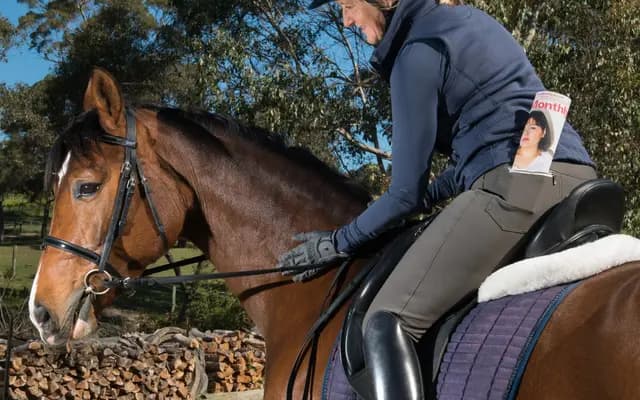
ABC Social
Dinamo Typefaces · Dinamo (Johannes Breyer & Fabian Harb, with Wei Huang, Malte Bentzen, Erkin Karamemet & Fabiola Mejia)
ABC Social specimen from Dinamo Typefaces
A friendly, smooth grotesque in four widths with eight weights, dynamic 's' and double-storey 'a', plus square, round and angled punctuation forms.
A grotesque sans by Dinamo (Johannes Breyer and Fabian Harb, with Wei Huang, Malte Bentzen, Erkin Karamemet and Fabiola Mejia) that fills a gap in the foundry's library between its more constructed sans serifs. Social spans four widths (Social, Condensed, Extended, Mono) and eight weights from Hairline to Black with italics, packaged as variable fonts. Notable details include a freely designed dynamic 's', double-storey 'a', and three forms of punctuation: square, round and angled. Latin, Cyrillic and Greek are supported. Reach for it when work needs warmth and humour without losing grotesque discipline.
Dinamo describe Social as a multi-people, multi-width mega collaboration; a friendly, smooth grotesque with variable font capabilities that fills a gap in their library, standing apart from their more constructed sans serifs both visually and technically.